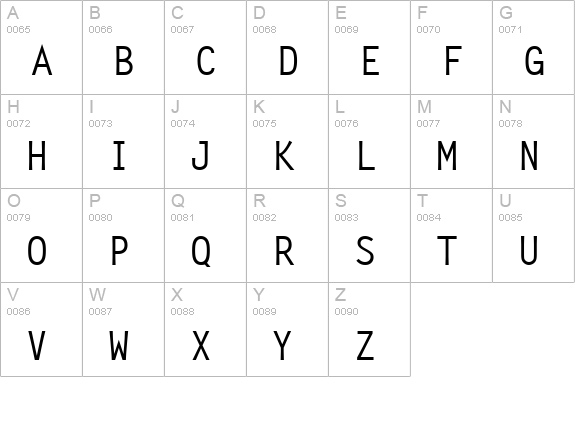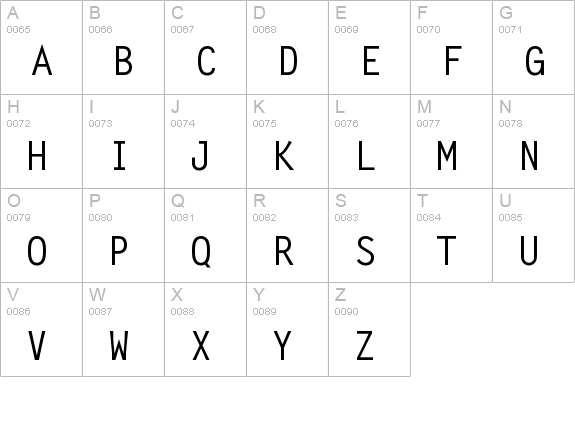
Introducing LetterGotLMed, a stunning and versatile font that will elevate your design projects to new heights. This font is the perfect balance between elegance and modernity, making it suitable for a wide range of applications. With its clean lines and distinctive letterforms, LetterGotLMed captures attention and adds a touch of sophistication to any design. Whether you're creating a logo, designing a website, or crafting eye-catching social media posts, this font will effortlessly make your content stand out from the crowd. But what truly sets LetterGotLMed apart is its availability for free download. Yes, you read that right - this incredible font is freely accessible to all at FontsMarket.com. Gone are the days of limited options and budget constraints. Now, you can enhance your creative projects without spending a dime. By offering LetterGotLMed as a free download, we aim to empower designers, entrepreneurs, and creatives of all kinds to unleash their creativity without any limitations. We believe that everyone should have access to high-quality fonts, and we are excited to contribute to your artistic journey. The versatility of LetterGotLMed knows no bounds. Its legibility and stylish aesthetic make it suitable for various design purposes, from branding to advertising, from print to digital media. Craft compelling headlines, captivating banners, and engaging social media posts effortlessly with this font's unique charm. Downloading LetterGotLMed is as simple as a few clicks away. Visit FontsMarket.com, your go-to destination for premium fonts, and add this gem to your font library. Embrace the freedom to create remarkable designs that leave a lasting impression. So, what are you waiting for? Let LetterGotLMed be your creative companion, guiding you through the vast expanse of design possibilities. Download this font for free, exclusively at FontsMarket.com, and unlock a world of endless creativity.